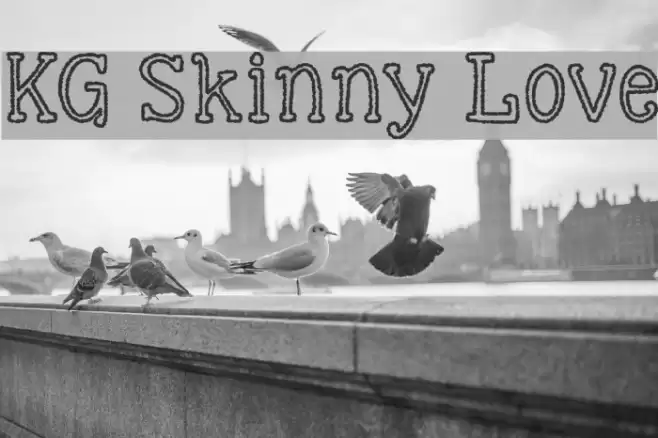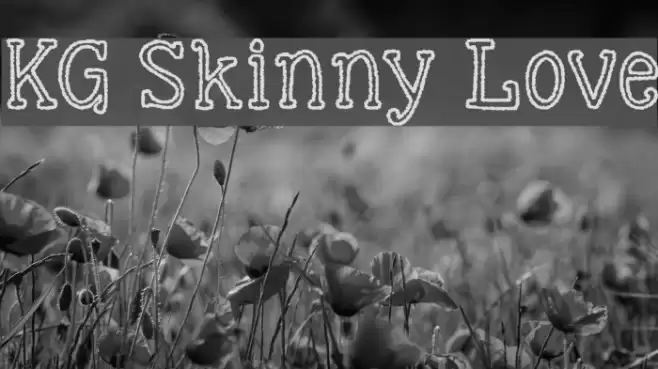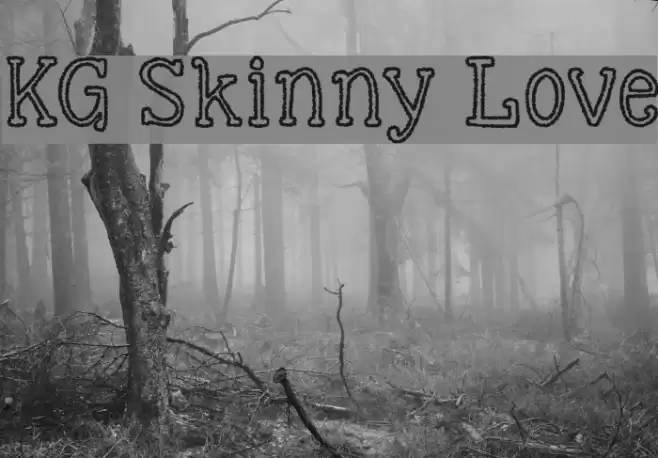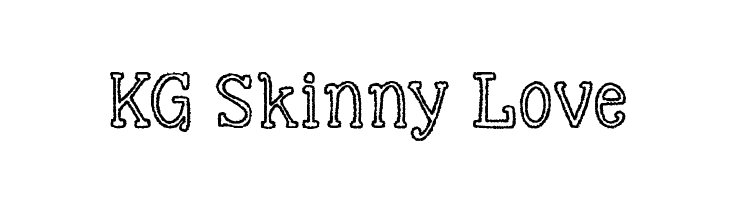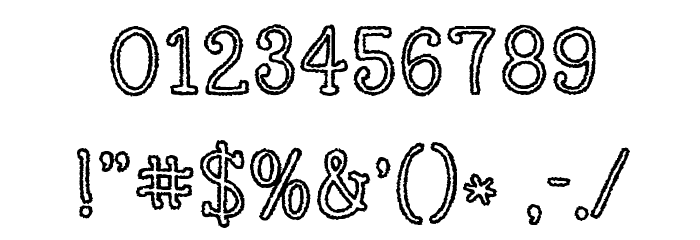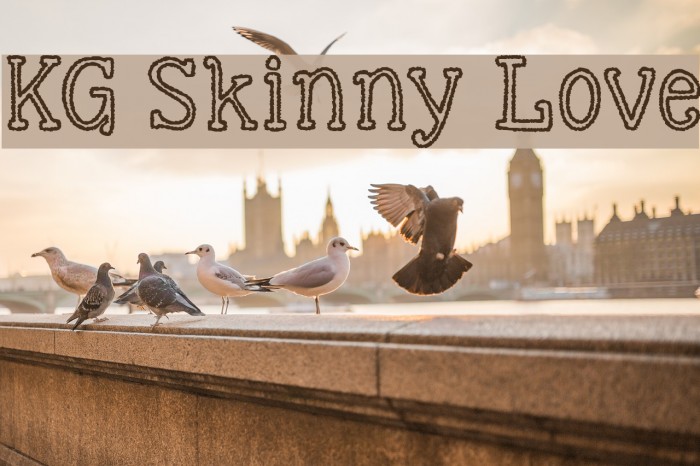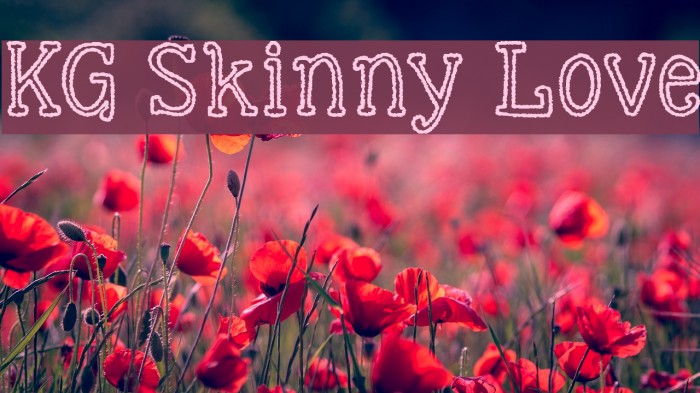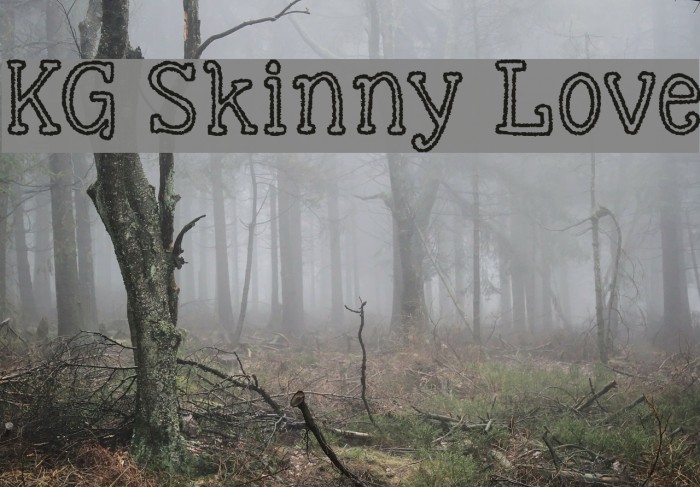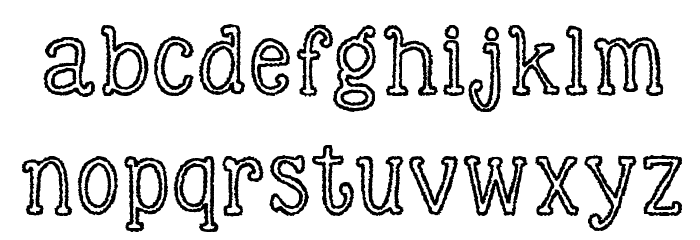
KG Skinny Love Font
KG Skinny Love Description
This font features a playful and whimsical design with a hand-drawn appearance. The characters have a slightly irregular outline, giving them a textured and sketch-like quality. The uppercase and lowercase letters maintain a consistent style, with rounded edges and a casual feel. The numbers and special characters follow the same aesthetic, making the font cohesive and versatile. Its unique style makes it stand out, adding a personal touch to any project.
A playful, hand-drawn font with a textured, sketch-like appearance from Uncategorized fonts.
- Proposed Projects: Ideal for greeting cards, children's books, playful branding, and creative posters.